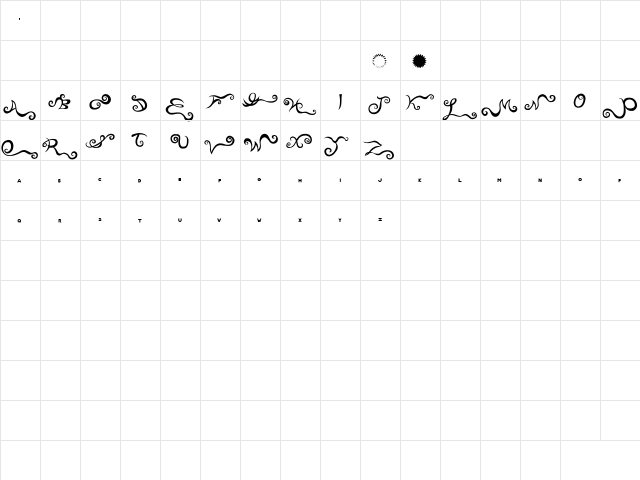
70:Wonta Regular
Design Context for 70:Wonta Typeface
70:Wonta is a composed and adaptable typeface that performs quietly and consistently across a wide range of design contexts.